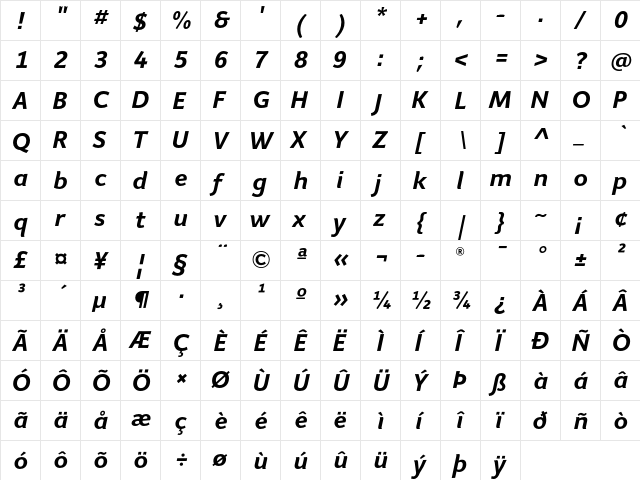
Giacomo LT Bold Italic Font Preview
Giacomo LT Bold Italic
Giacomo LT Bold Italic Font Details
| Designer | James Montalbano |
Design Context for Giacomo LT Typeface
Giacomo LT takes a measured approach to typography — its balanced proportions and neutral character make it a reliable workhorse for both digital and print work. The slanted form adds forward momentum and visual energy. Its bold stroke weight gives it real presence on the page.
Pro Tip: Use Giacomo LT for emphasis, pull quotes, and subheadings where its slanted energy can add rhythm to the layout.